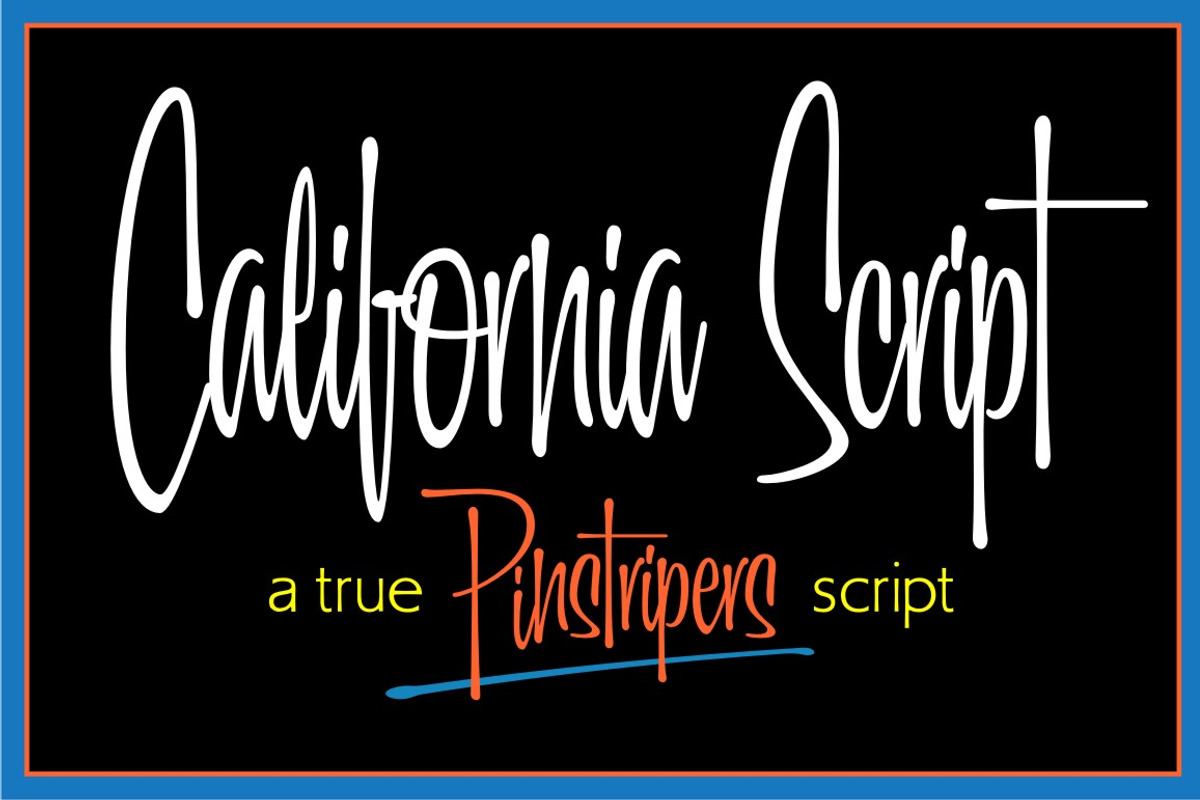
Enhance your designs with California Script Font Free Download, a stylish and elegant script typeface perfect for modern, creative projects. You need to purchase this font for commercial use. However, you can test and explore its graceful style using California Script Font Free Download for personal purposes. With flowing lines, delicate curves, and exceptional readability, it's ideal for branding, invitations, wedding stationery, logos, social media graphics, and more. Designers love its sophisticated yet approachable aesthetic, instantly elevating visual appeal. Download California Script Font Free Download today and bring a fresh, artistic touch to your next creative project with ease and elegance.